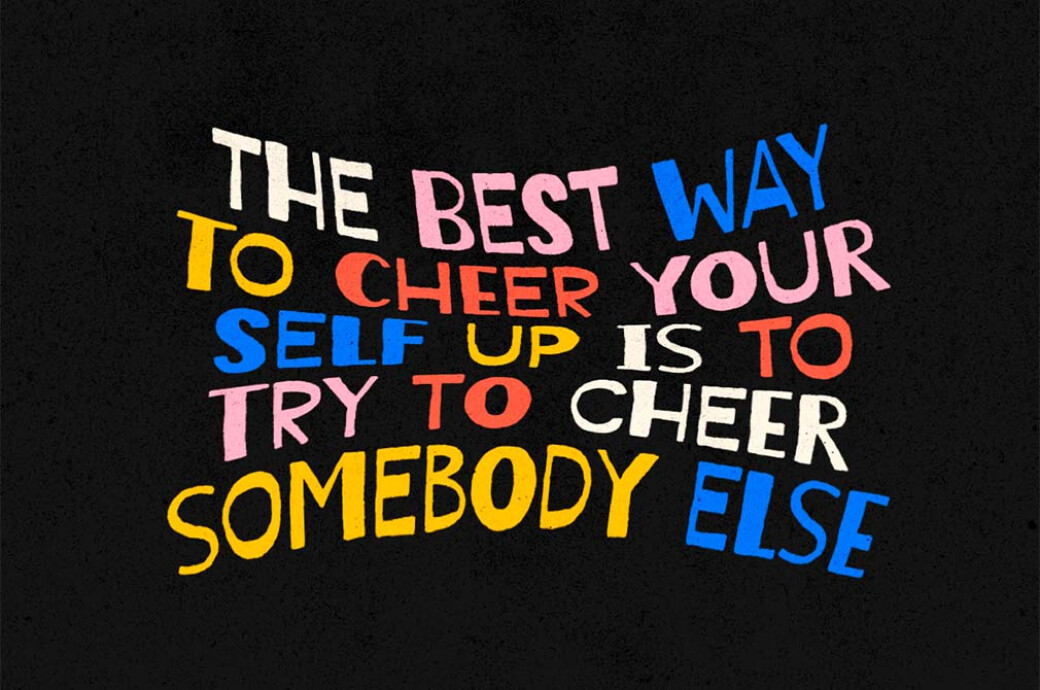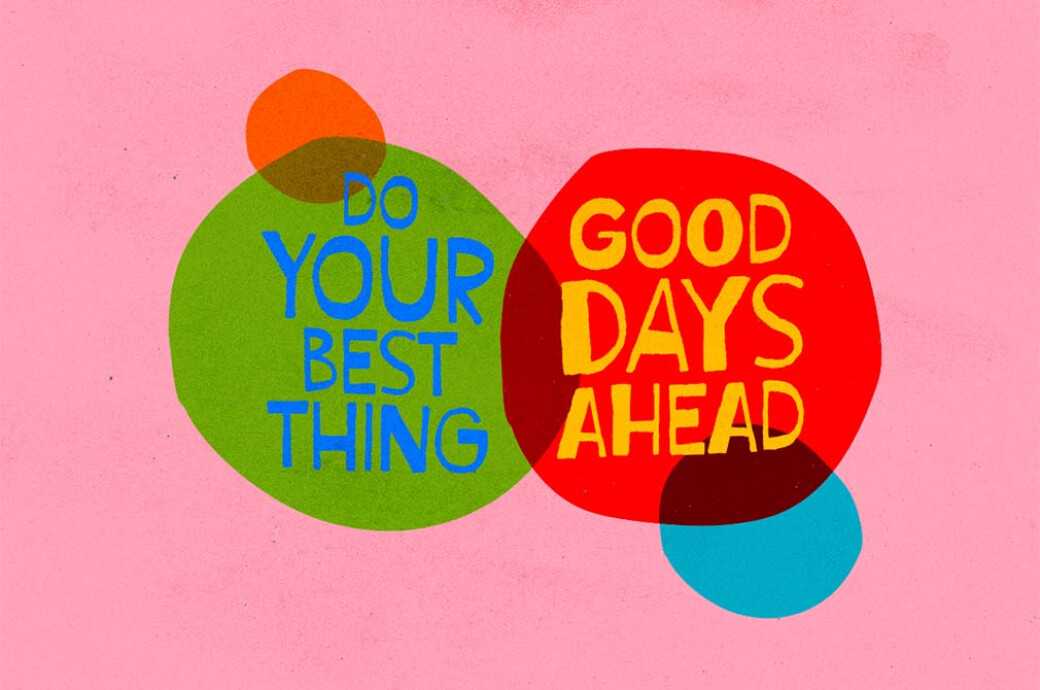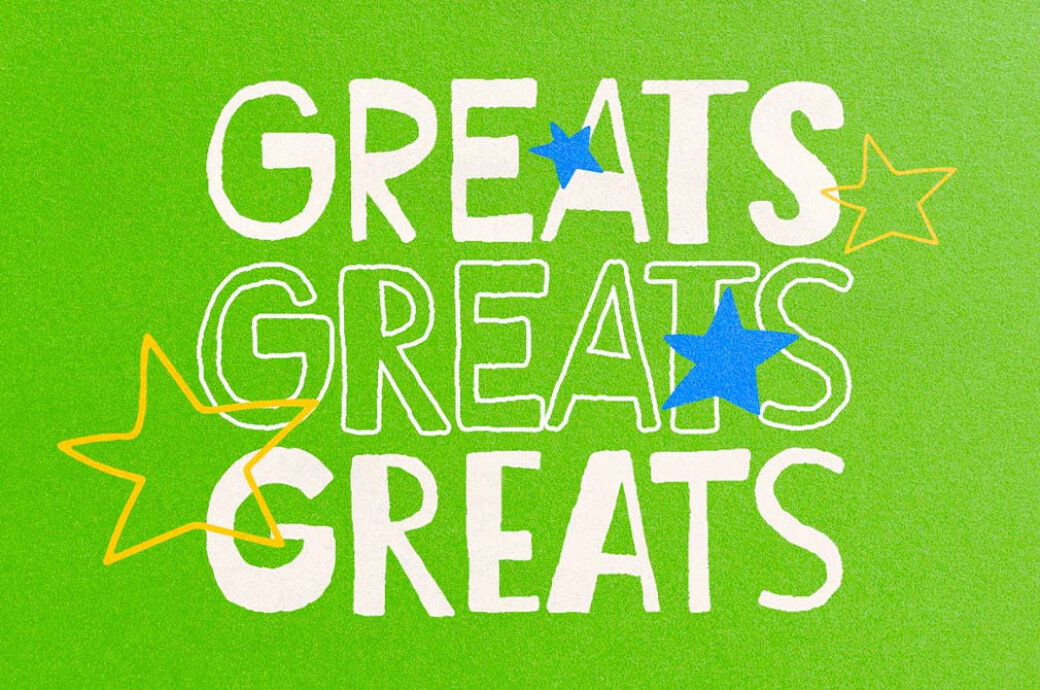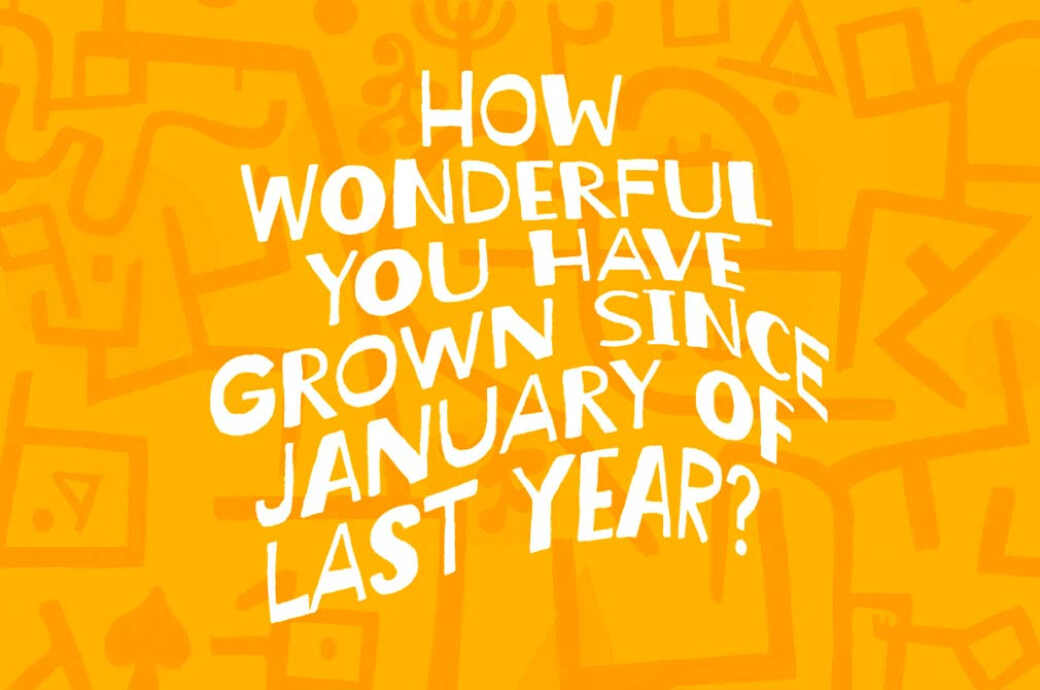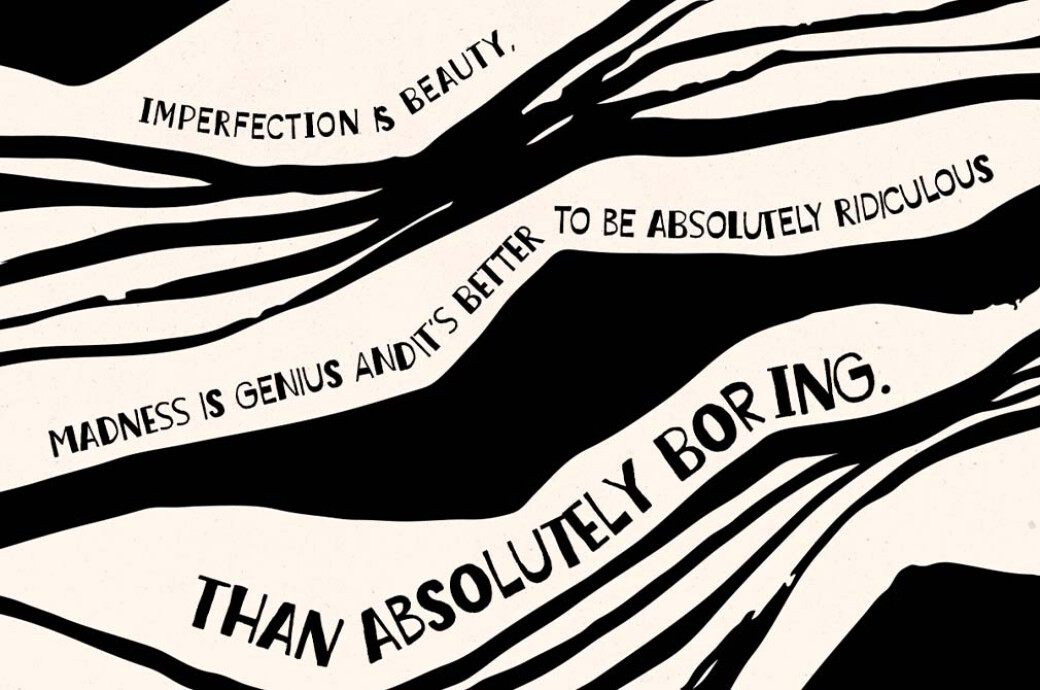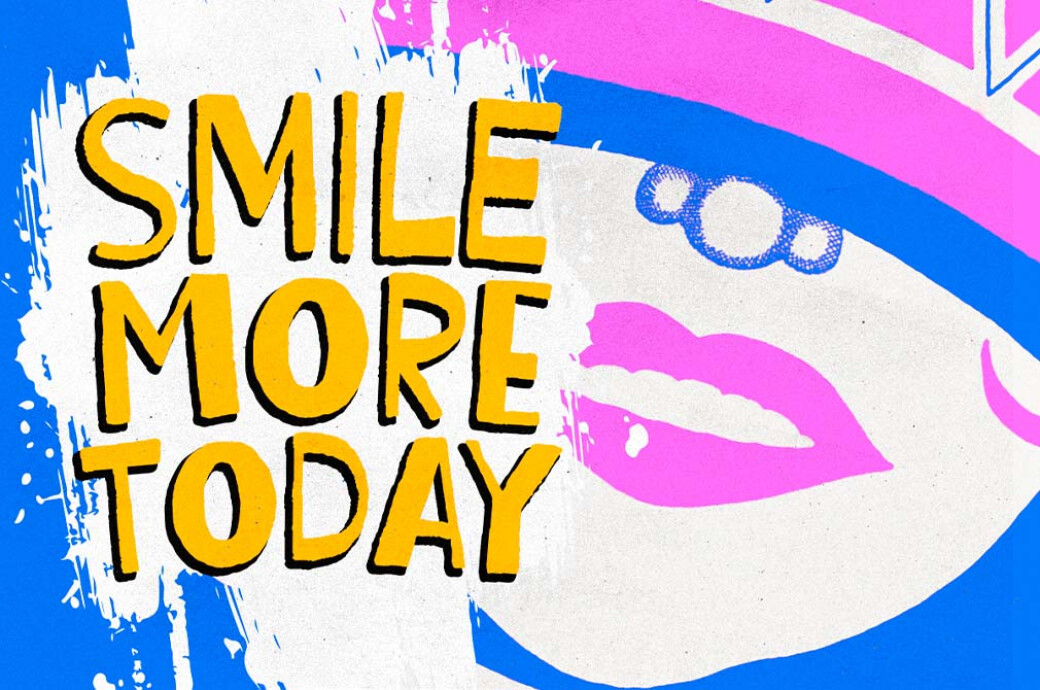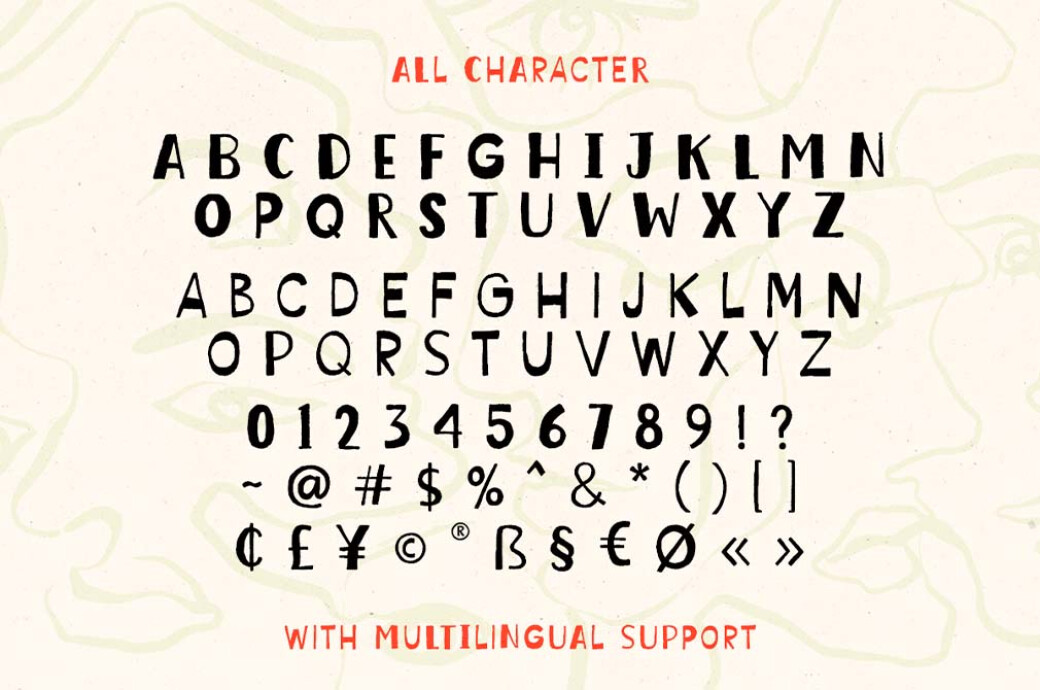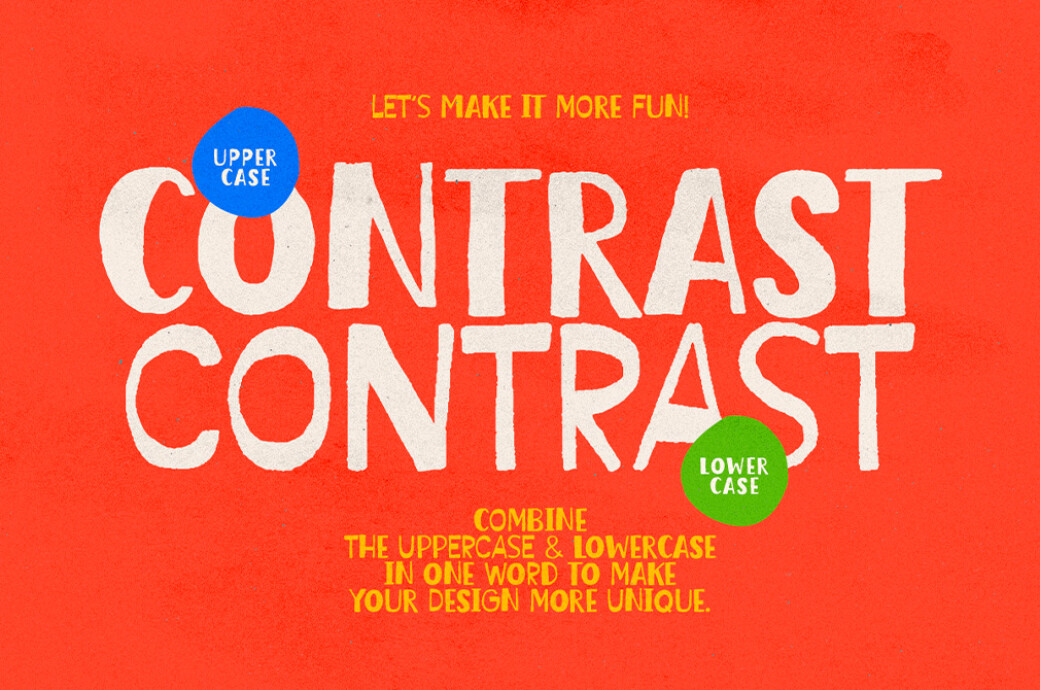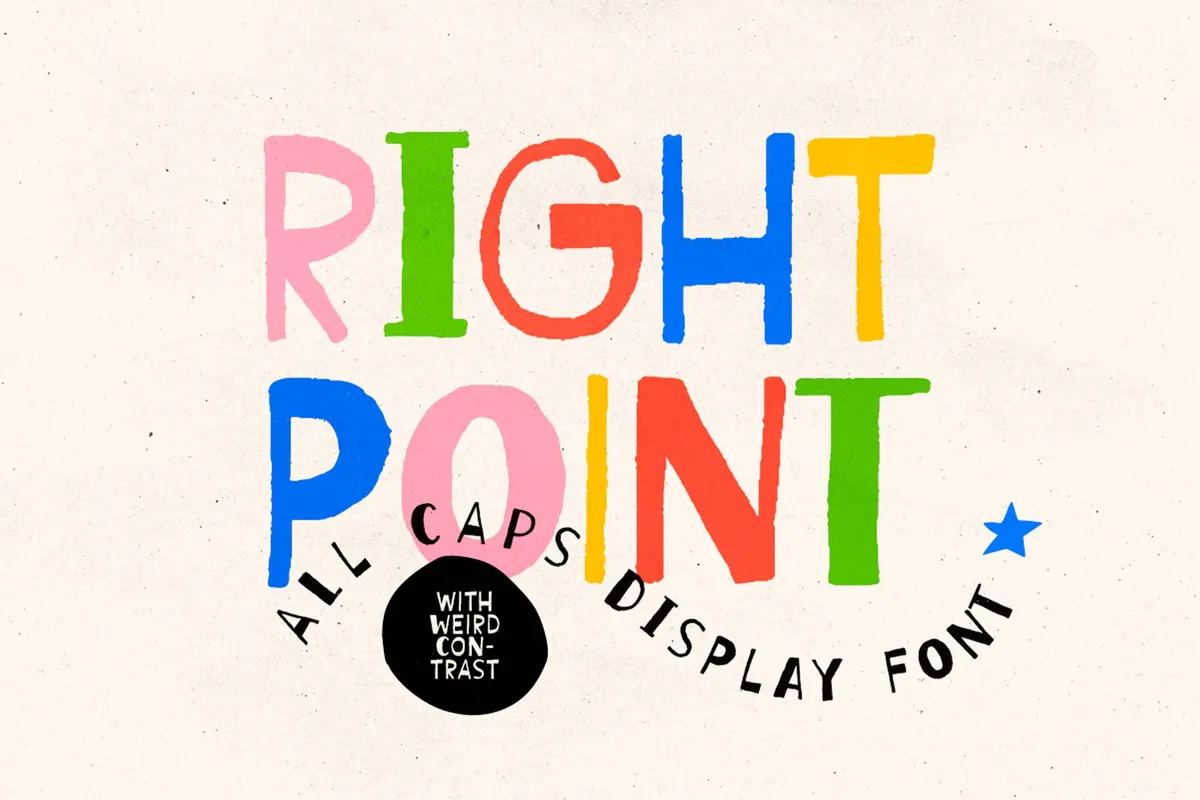
Right Point — All Caps Display
Pick up crayons, colorful chalk, and pencils, merge them, and feast your eyes on the perfect hand-drawn look of the letters. This is how Right Point was made.
Every letter is filled with joy and kiddish ease, making even casual use of the font super fun. Obviously, Right Point is the typeface of choice for children's projects, like apparel, stationery, comics, and books. However, you can also use it for food branding and packaging, relevant ads, and a lot more. The font is all-caps, supplied with all the necessary extras: multilingual support, numbers, punctuation marks, and symbols.